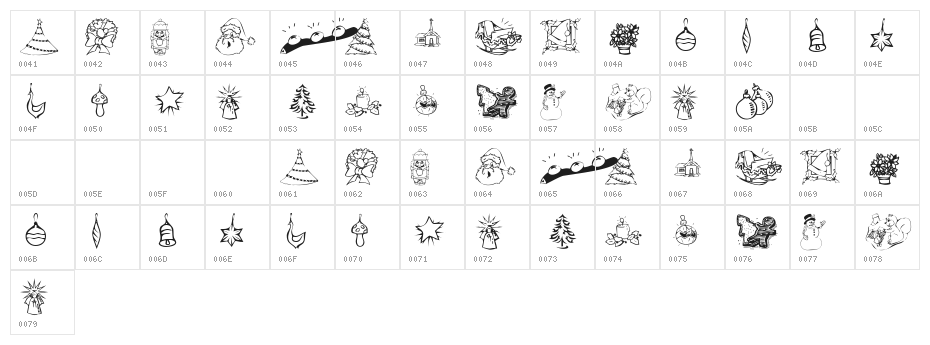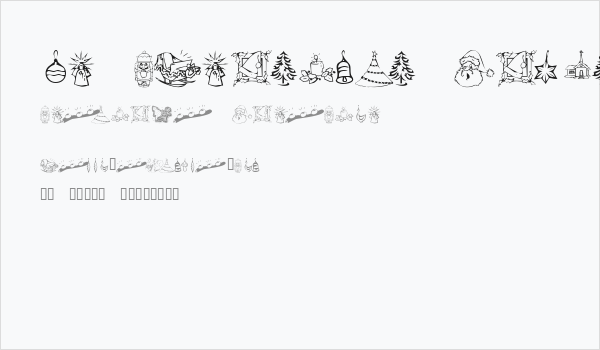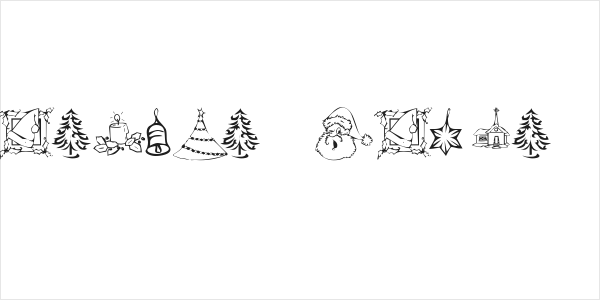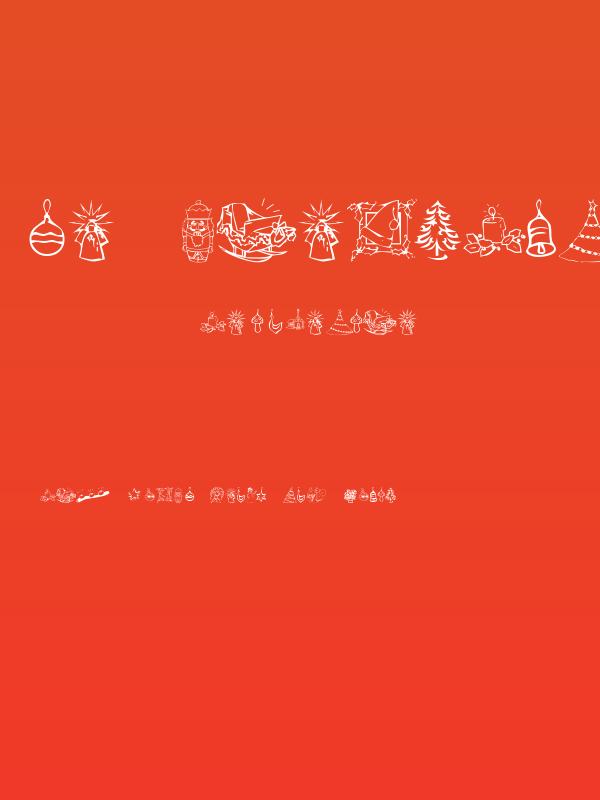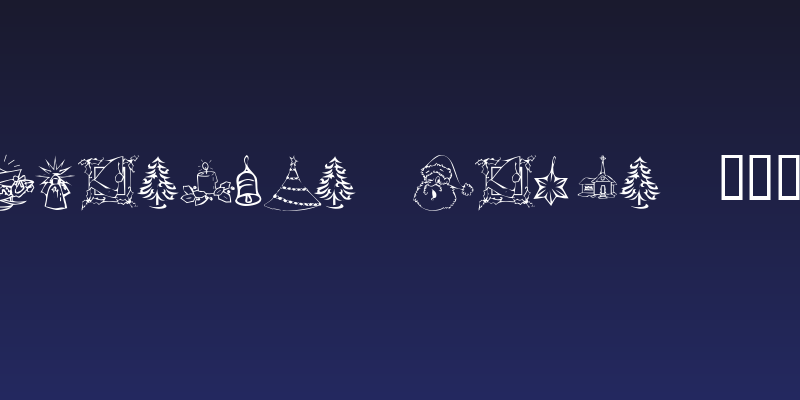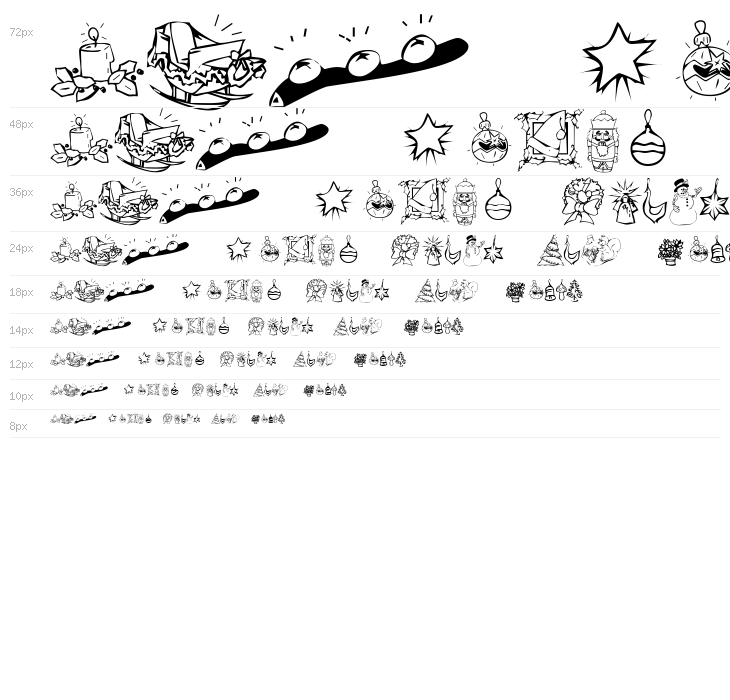
KR Christmas Dings 2004 Two Font
KR Christmas Dings 2004 Two Description
This is a decorative dingbat font featuring a variety of Christmas-themed illustrations. Each character is represented by a unique festive icon, including Christmas trees, wreaths, Santa Claus, snowmen, and other holiday symbols. The style is playful and whimsical, capturing the essence of the holiday season with intricate line work and charming details. These icons are perfect for adding a festive touch to holiday cards, invitations, and other seasonal projects. The font is not designed for text but rather for decorative purposes, making it ideal for creative and artistic applications.
| Use Case | Decorative elements, Holiday designs |
| Proposed Projects | Ideal for holiday cards, festive invitations, seasonal decorations, and creative Christmas-themed designs. |